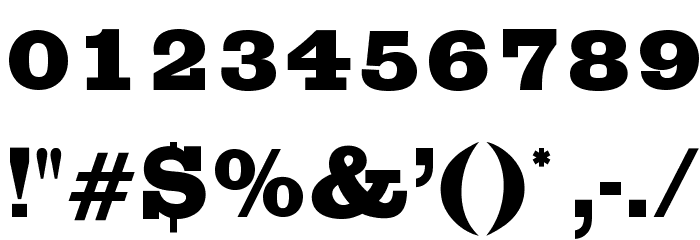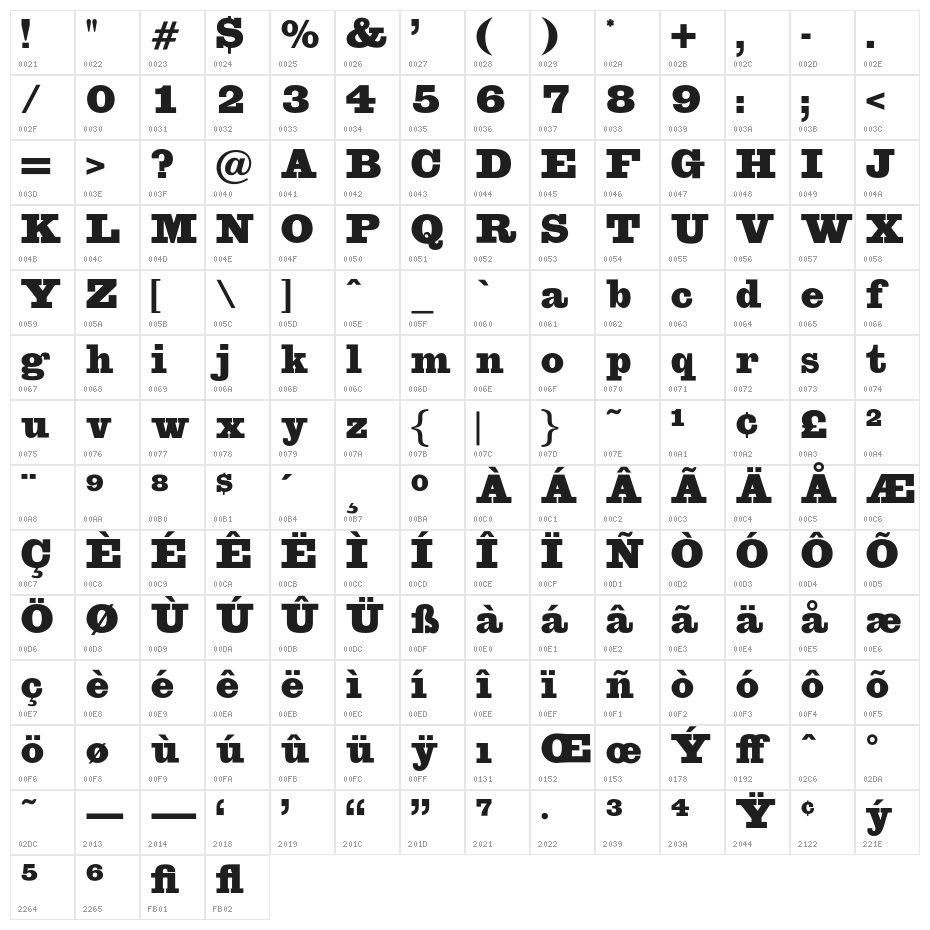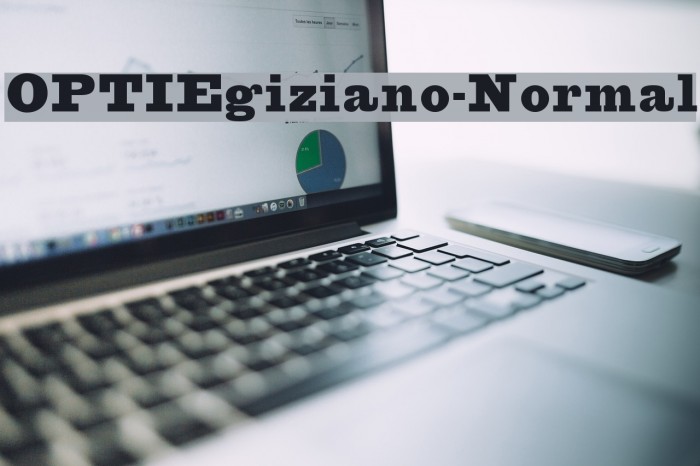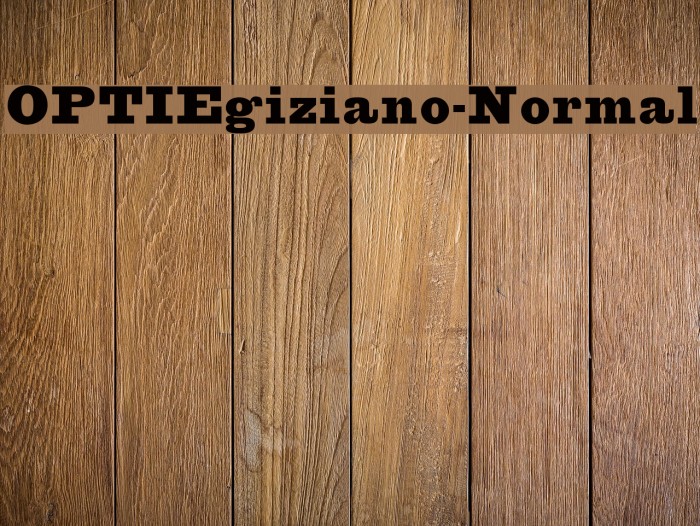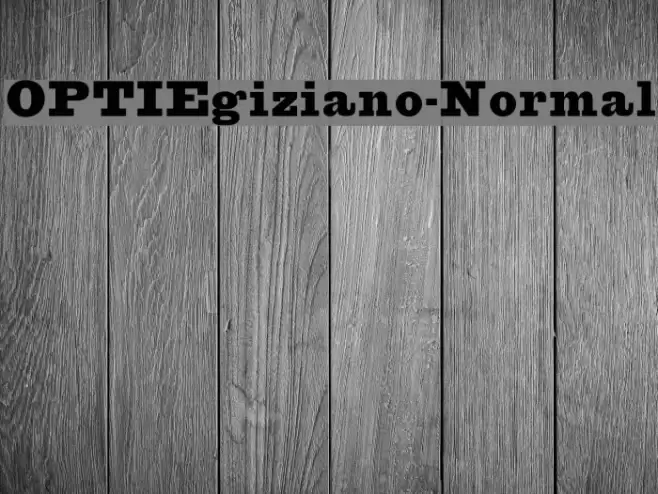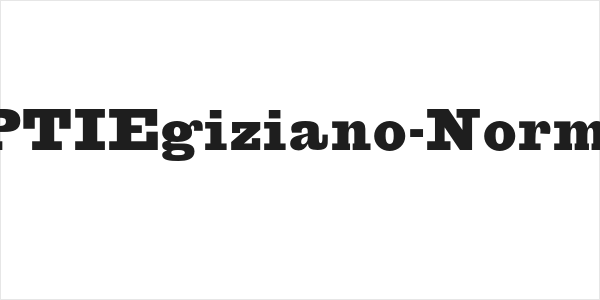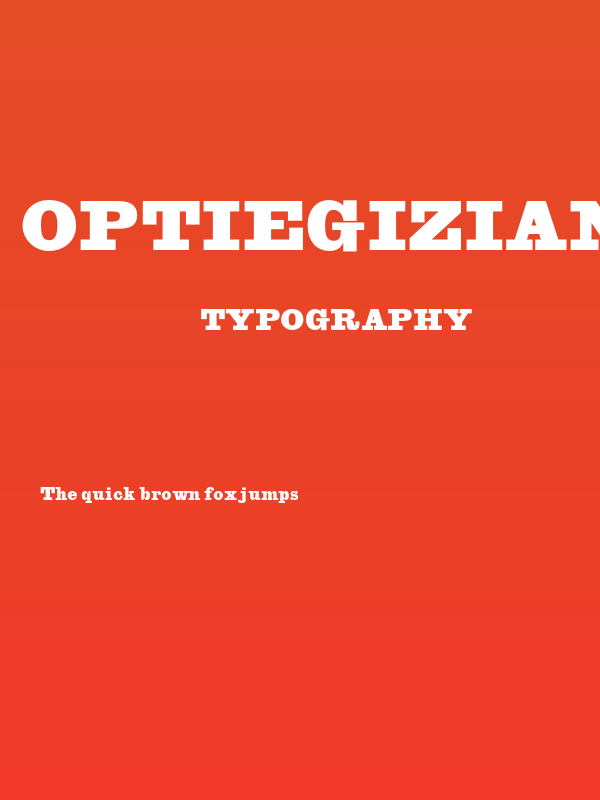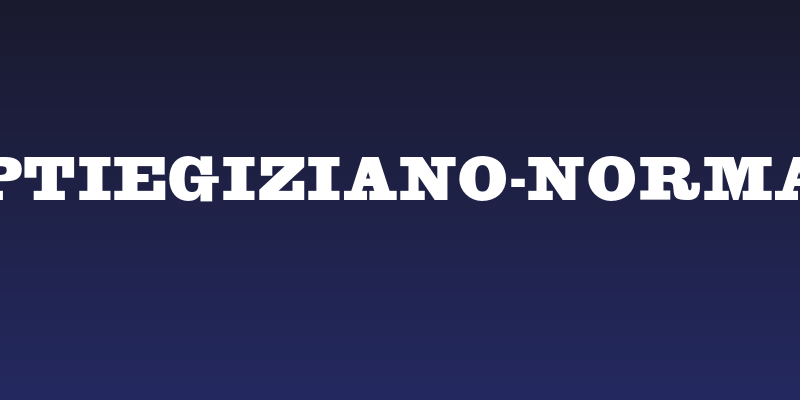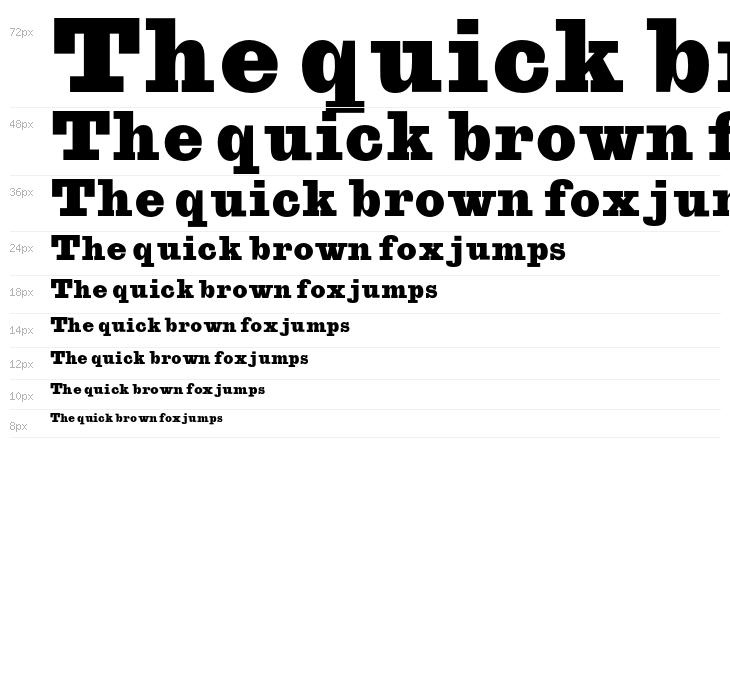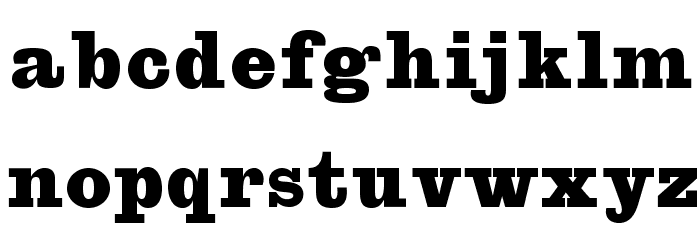
OPTIEgiziano-Normal Font
OPTIEgiziano-Normal Description
This font exhibits a bold and robust slab serif style, characterized by thick, block-like serifs that give it a strong and authoritative presence. The uppercase letters are uniformly wide, with a consistent stroke weight that enhances readability and impact. The lowercase letters maintain the same boldness, with rounded edges that soften the overall appearance. Numbers are equally bold, ensuring clarity and emphasis. Special characters are designed with the same attention to detail, making them stand out while maintaining harmony with the rest of the font. This font's design is ideal for making a statement, combining traditional serif elements with a modern twist.
| Proposed Projects | Ideal for headlines, posters, branding, and any project requiring a bold, impactful typeface. |